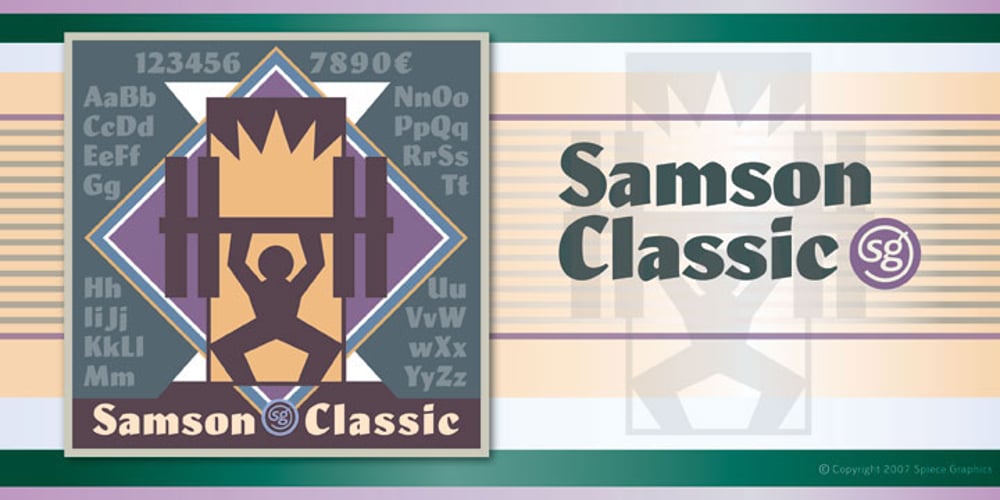
Samson Classic SG Font Family was designed by Robert Hunter Middleton, Jim Spiece and published by Spiece Graphics. Samson Classic SG contains 1 styles and family package options. Here is another classic design by Robert Hunter Middleton for the Ludow Foundry in 1940. Samson Classic is a very heavy display face with a wonderful medley of thick-and-thins. Developed just before World War II, this sturdy, chunky style gained popularity in newspaper advertising work. It appears as though it was created using a broad pen and retains the angled stroke endings. Goes great on certificates and diplomas where just a hint of calligraphy is appropriate. Samson Classic is also available in the OpenType Std format. Some new characters including decorative ornaments for creating certificates have been added to this OpenType version. Advanced features currently work in Adobe Creative Suite InDesign, Creative Suite Illustrator, and Quark XPress 7. Check for OpenType advanced feature support in other applications as it gradually becomes available with upgrades.